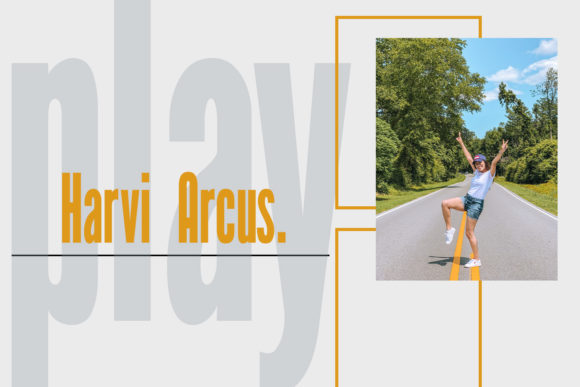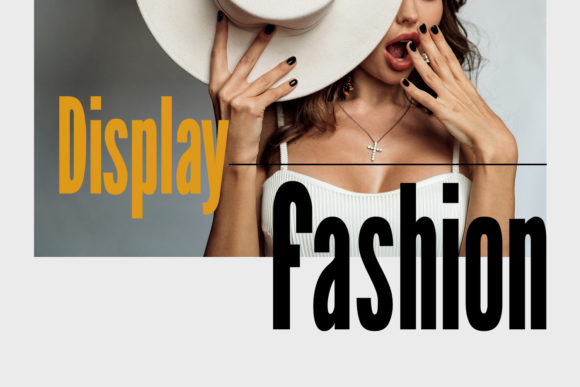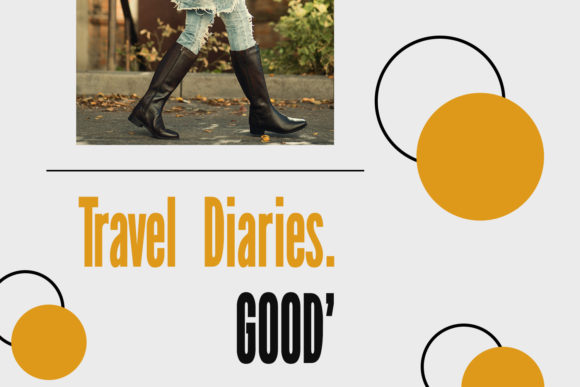
The Power of Typography: Unlocking Creativity with the Gornic Font
Have you ever stared at a blank canvas, trying to bring a concept to life, only to be held back by the right words? You know, that perfect phrase that would elevate your design from good to great? That’s where the magic happens, and the Gornic Font comes in – a cool, thick lettered, and bold display font that’s sure to take your creations to the next level.
Whether you’re a seasoned designer or just starting out, the Gornic Font is an incredible asset to add to your library. Its versatility makes it perfect for any topic, from bold headlines to eye-catching titles. And the best part? It’s incredibly easy to use, allowing you to focus on what matters most – bringing your vision to life.
Gornic Font Key Features
- Font Family: Gornic Font is a sans-serif typeface, designed to be highly legible and versatile.
- Unique Characteristics: Gornic Font features a unique blend of modern and industrial design elements, with clean lines, geometric shapes, and subtle nuances that set it apart from other sans-serif fonts.
- Language Support: Gornic Font supports a wide range of languages, including Latin, Cyrillic, and Greek alphabets, making it an excellent choice for global branding and design projects.
Gornic Font Review
As a designer, I was excited to dive into the Gornic font and see what it has to offer. Overall, I was pleased with the results, and here’s my honest review.
- Unique Design**: The Gornic font has a distinct, modern look that sets it apart from more traditional font styles.
- High-Quality Rendering**: The font renders beautifully at various sizes and resolutions, making it perfect for digital applications.
- Wide Character Set**: The font includes a wide range of characters, including Cyrillic and Greek alphabets, making it a great choice for multilingual projects.
- Limited Italic and Bold Styles**: While the font includes some italic and bold styles, they’re not as comprehensive as I would have liked.
- Lack of Ligatures**: Some fonts in the same family have ligatures, but unfortunately, Gornic does not.
Overall, I’m impressed with the Gornic font, and I think it’s a great addition to any designer’s toolkit. While it may have some limitations, its unique design and high-quality rendering make it a solid choice for a variety of projects.
The Gornic Font is suitable for various design projects, including:
- Editorial and publishing content